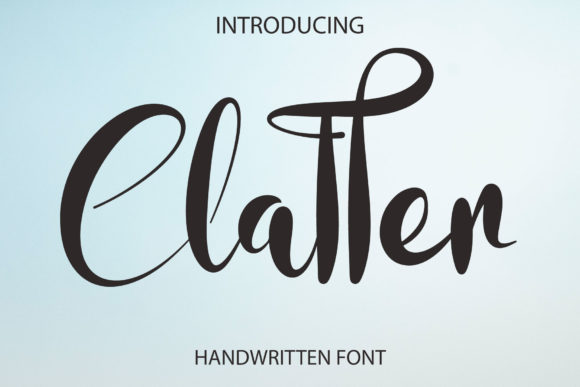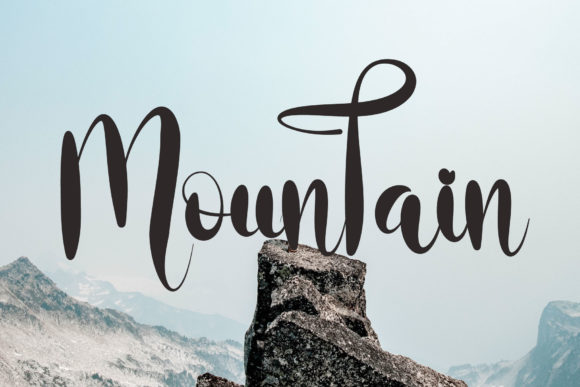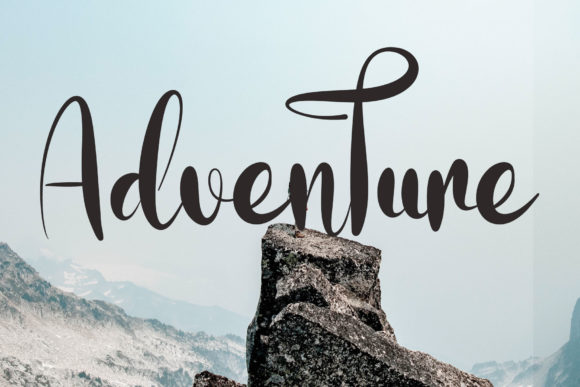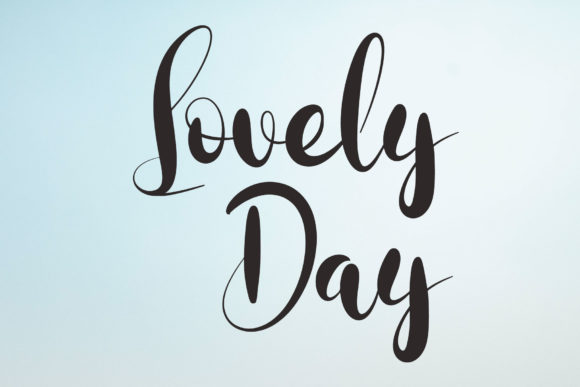
About Clatter Font
Clatter is an exquisite handwritten font that effortlessly balances the allure of classic calligraphy with a modern and refreshing twist. Its meticulously crafted design is poised to earn a special place among your favored typefaces.
With a seamless blend of timeless calligraphic elegance and contemporary flair, Clatter emanates a sense of sophistication that adds an elevated touch to any design. The precision and finesse of each letterform showcase the careful attention that went into creating a font that exudes both refinement and innovation.
Despite its traditional roots, Clatter exudes a contemporary charm that injects a fresh vitality into your projects. This harmonious fusion of the old and the new ensures that the font resonates with a diverse range of design sensibilities, making it a versatile choice for various creative endeavors.
Clatter’s ability to infuse your designs with an aura of luxury and artistic finesse is unmatched. Whether applied to branding, logo design, invitations, or any other visual concept, the font’s elegant and graceful characters instantly elevate the overall aesthetic.
The adaptability of Clatter becomes evident as it seamlessly integrates into different design contexts. From sumptuous wedding invitations that exude romance, to sleek and polished branding materials that command attention, this font’s versatility knows no bounds.
Each meticulously formed character within Clatter is a testament to its craftsmanship and devotion to detail. The fluid strokes and delicate curves make working with the font a delightful experience, enabling you to create captivating typography that resonates deeply.
To sum up, Clatter stands as a true masterpiece, encapsulating the essence of classic calligraphy with a dash of contemporary allure. Its unparalleled blend of timeless sophistication and modern charm makes it a font that can effortlessly elevate your creative projects to new heights. Whether you’re aiming for an air of opulence and refinement or seeking a fresh and modern look, Clatter is undoubtedly poised to become an indispensable asset in your design toolkit.